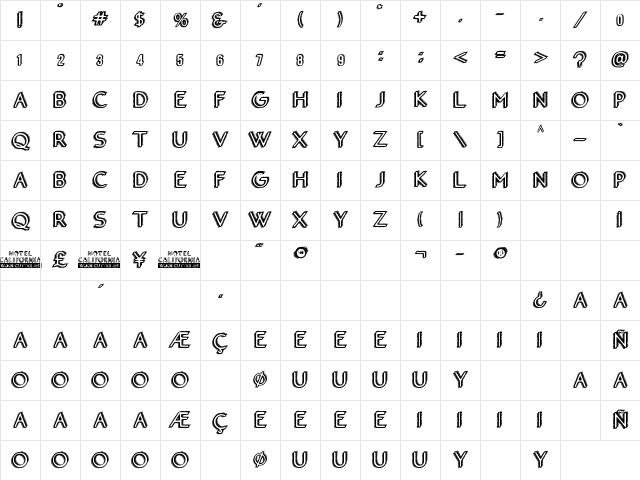
Hotel California Regular
Design Context for Hotel California
Hotel California is a composed and adaptable typeface that performs quietly and consistently across a wide range of design contexts.